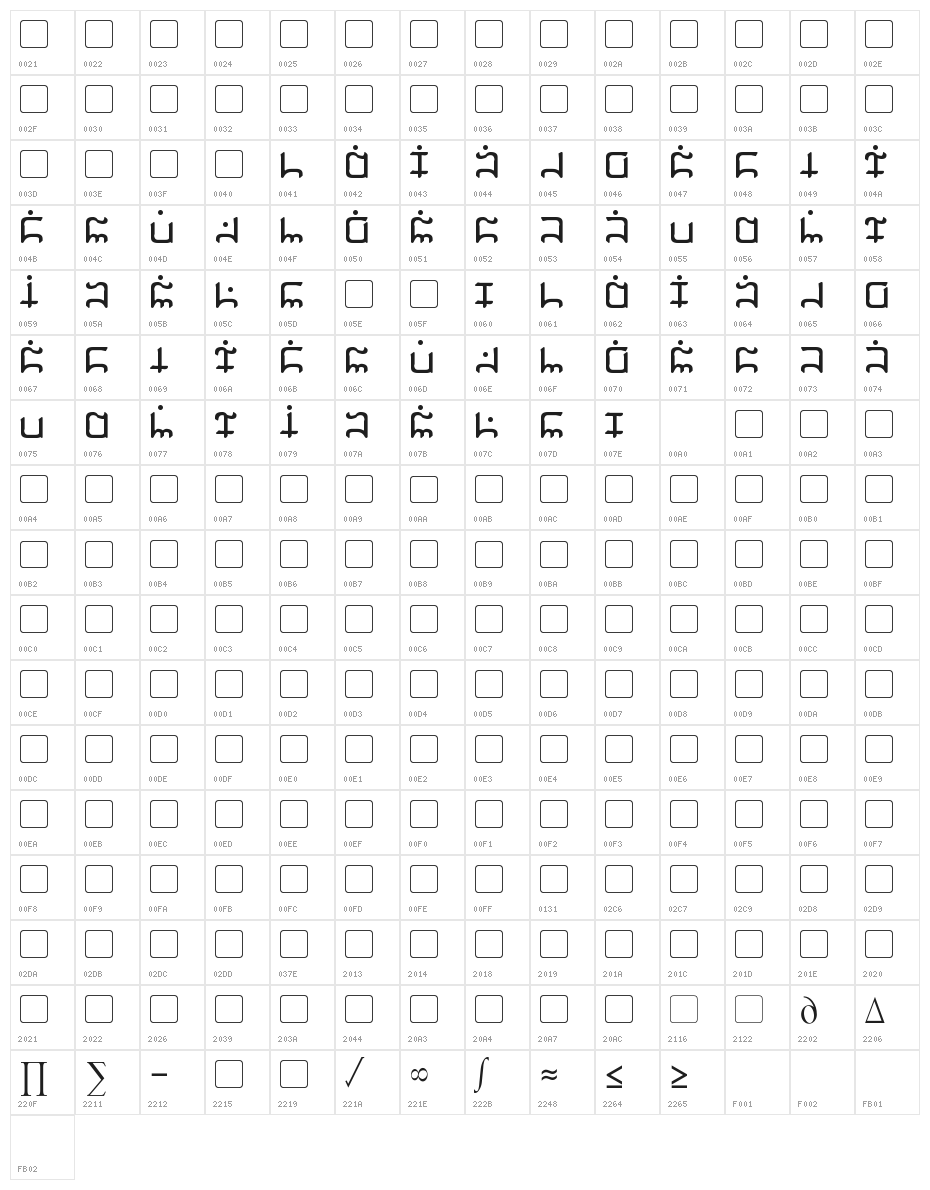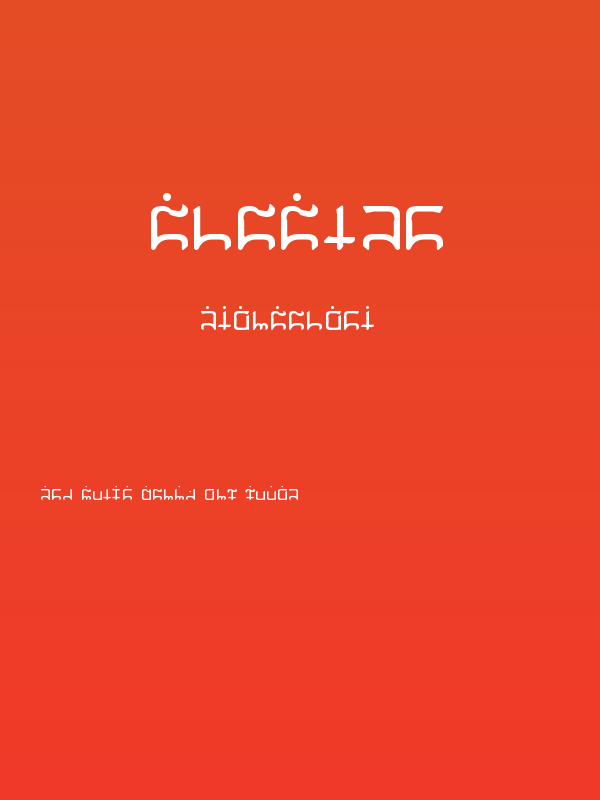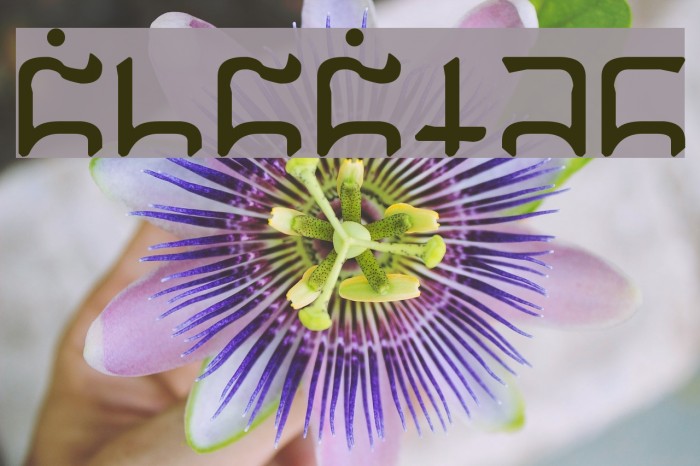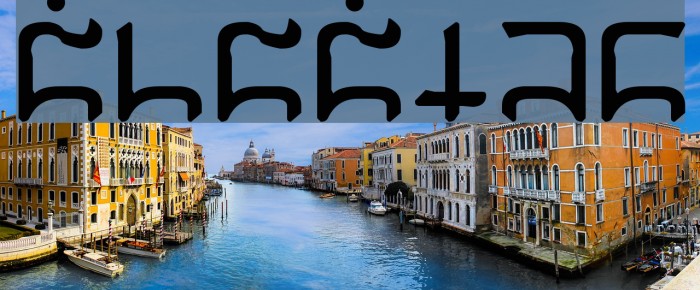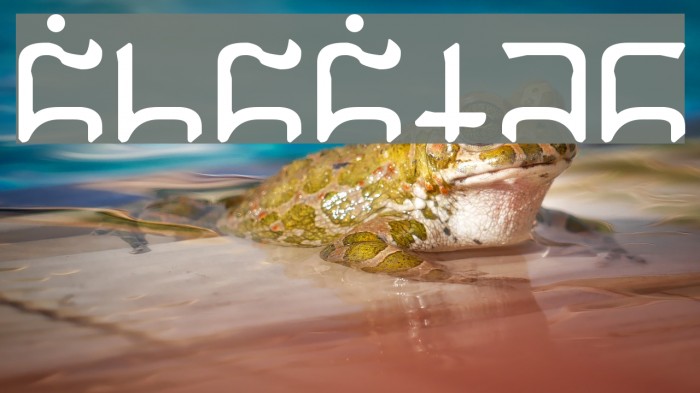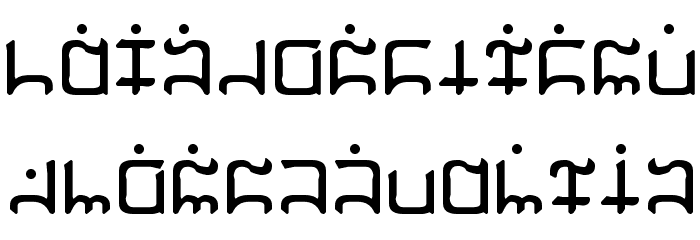
Gargish Font
Gargish Description
This font features a unique and intricate design, characterized by its decorative and abstract shapes. The characters are composed of bold, rounded forms with distinct geometric elements, giving it a mystical and ancient appearance. The strokes are consistent in thickness, providing a uniform look across all characters. The font lacks traditional serifs or stems, instead opting for a more fluid and organic structure. This style is reminiscent of ancient scripts or fantasy languages, making it ideal for creative and thematic projects.
| Overall Style | Mystical, Ancient, Decorative |
| Use Case | Logos, Titles, Thematic Designs |
| Proposed Projects | Ideal for fantasy-themed projects, video game interfaces, book covers, or any creative work requiring an ancient or mystical aesthetic. |